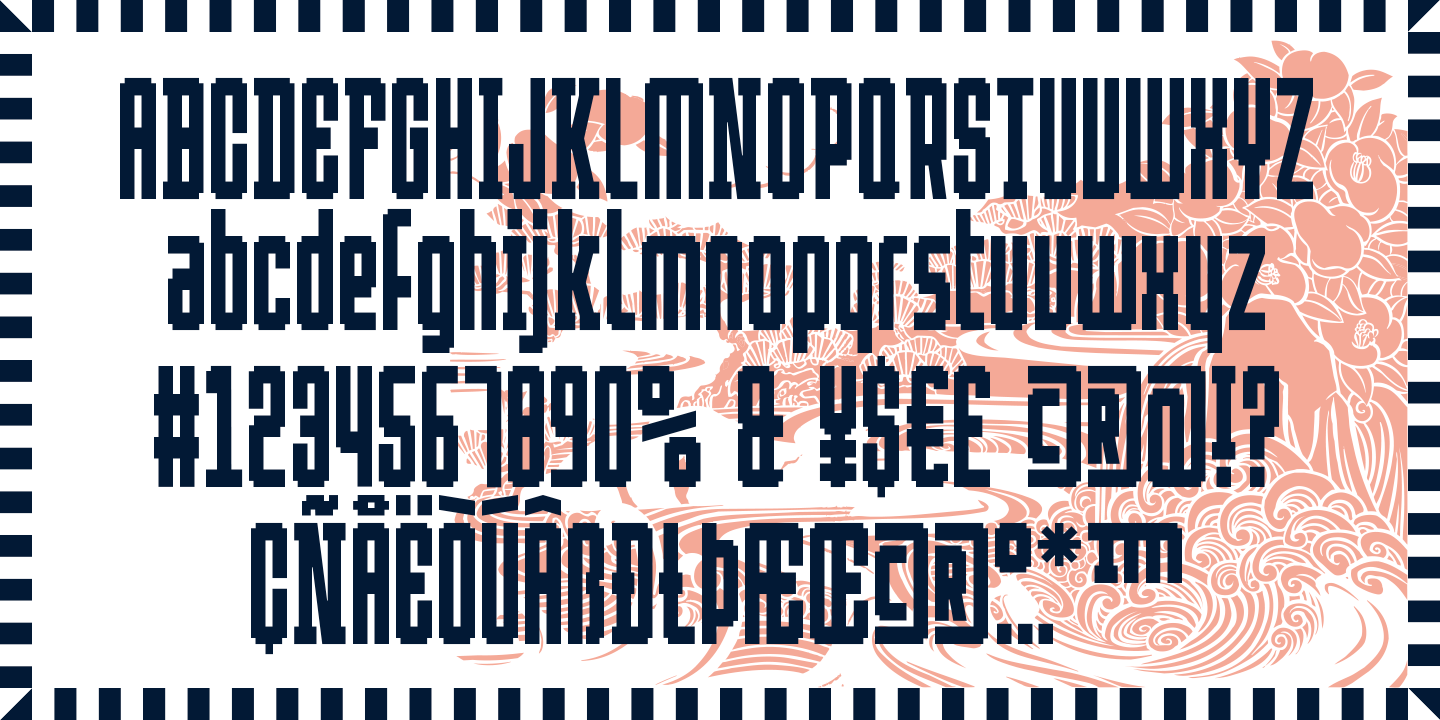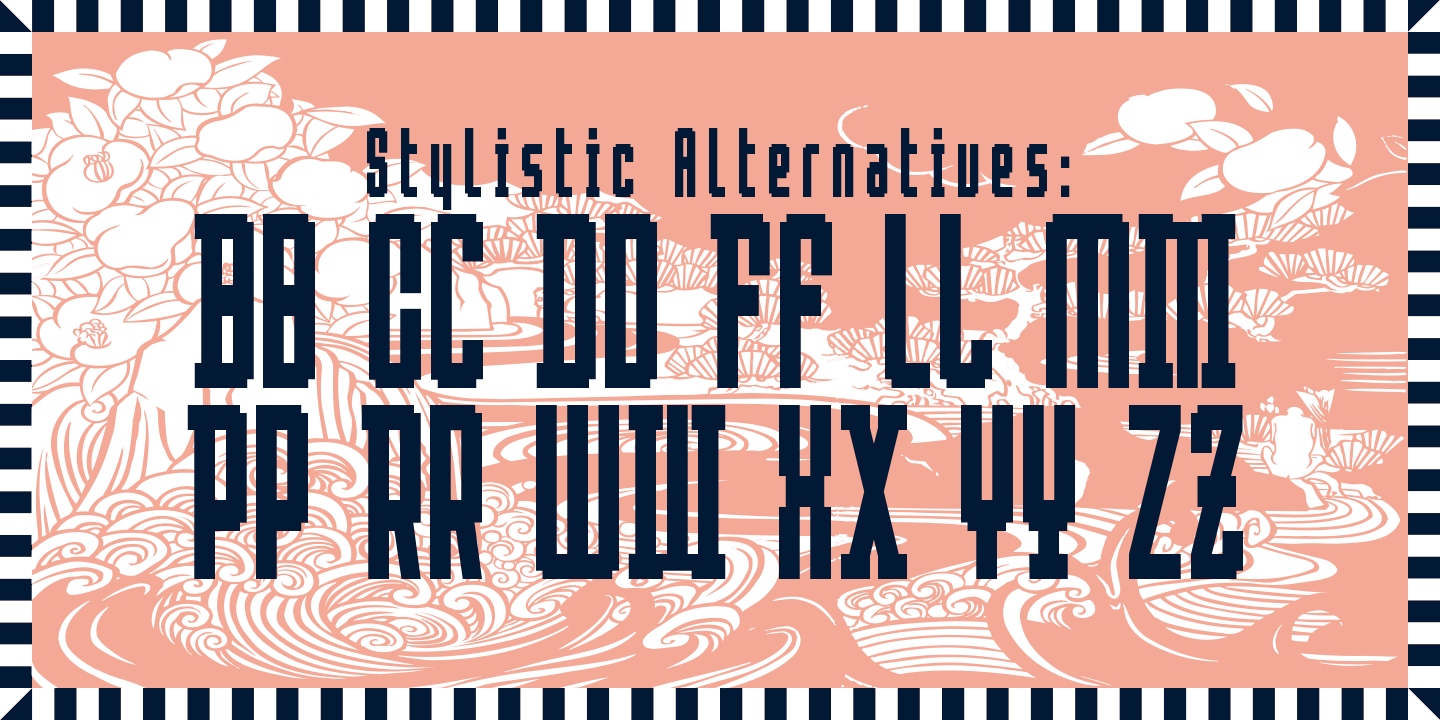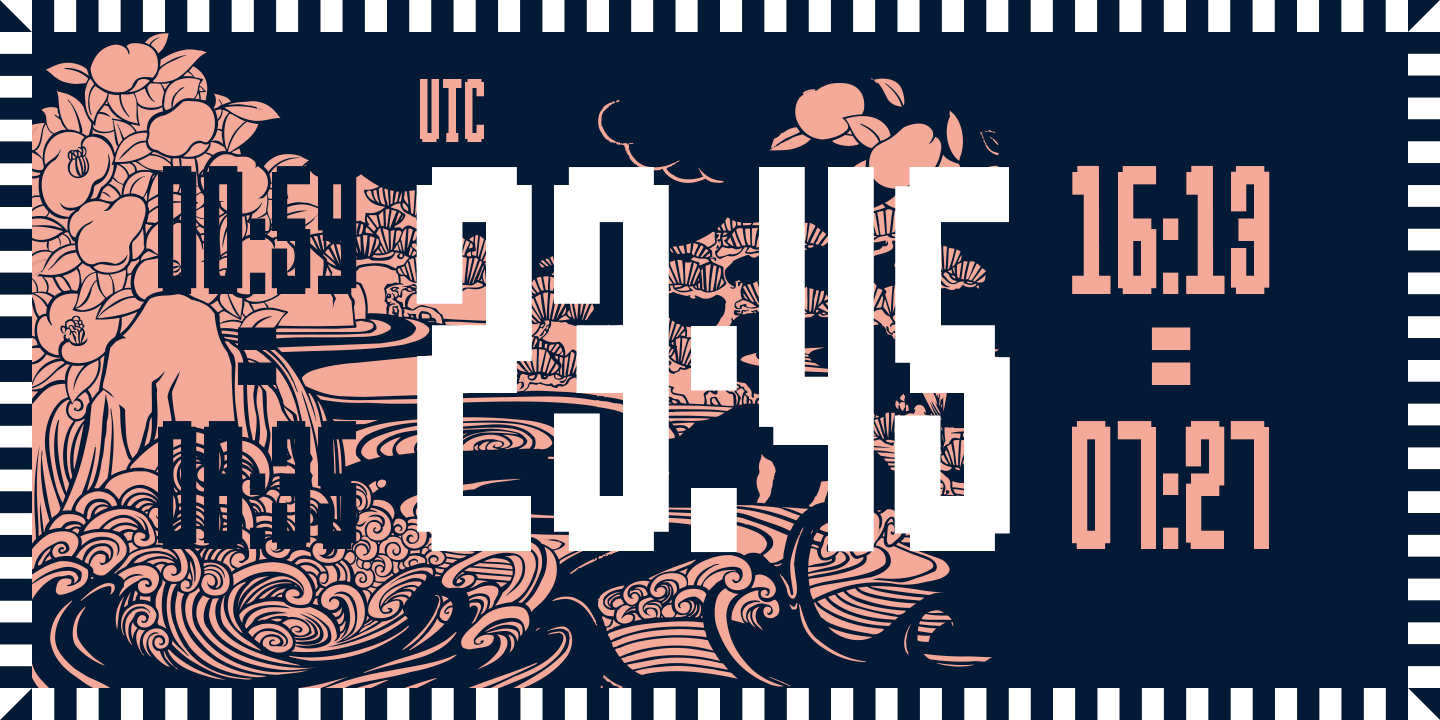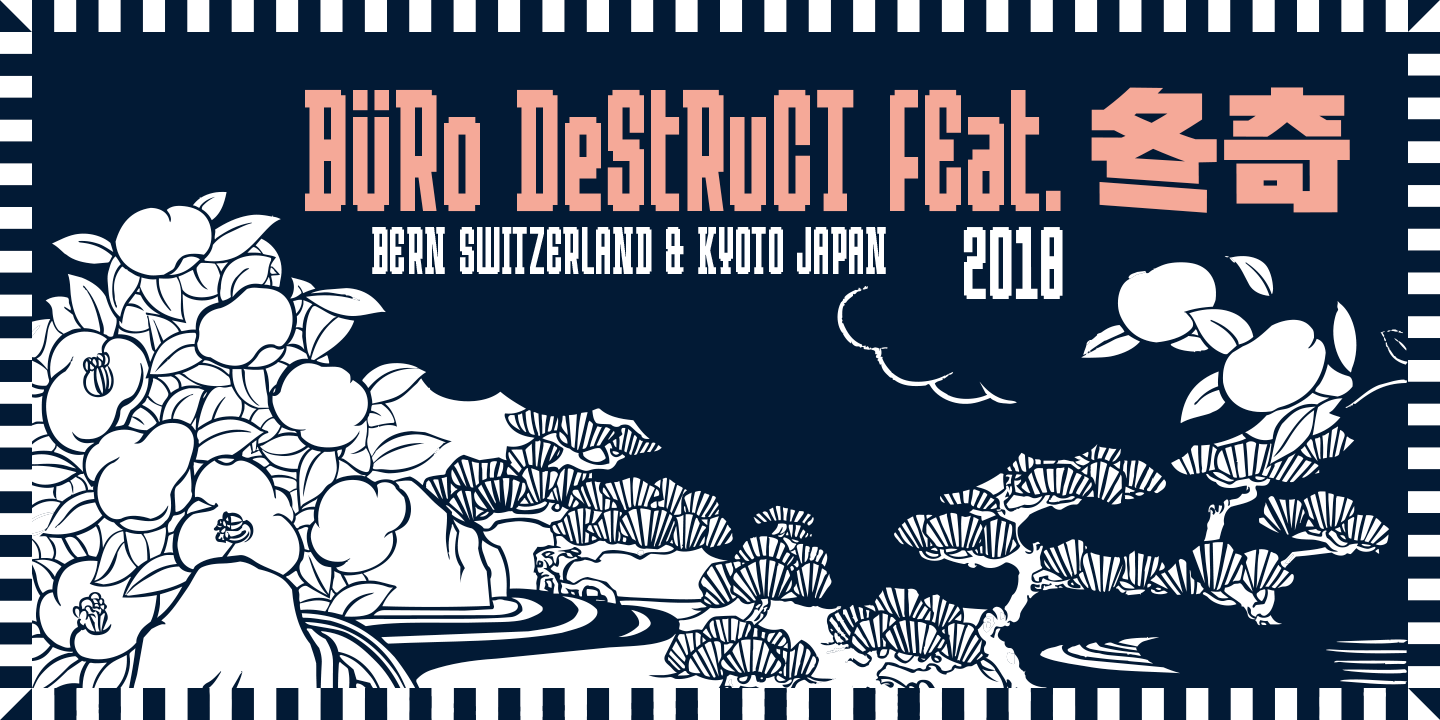
BD Westwork Font: A Bold and Distinctive Display Typeface
Are you looking for a font that can add a touch of uniqueness and elegance to your design projects? Look no further than the BD Westwork Font. This very condensed, bold, and distinctive display typeface is perfect for designers and crafters who want to make a statement with their work. In this article, we’ll explore the features and benefits of BD Westwork Font, and how it can elevate your designs to the next level.
What is BD Westwork Font?
BD Westwork Font is a display typeface designed to make a bold statement. Its condensed and bold style makes it perfect for headlines, titles, and other display text. The font’s distinctive design features a unique blend of modern and classic elements, making it versatile and suitable for a wide range of design projects.
Key Features of BD Westwork Font
- Condensed and Bold: BD Westwork Font is extremely condensed, making it perfect for designs where space is limited. Its bold style ensures that your text stands out and grabs attention.
- Distinctive Design: The font’s unique design features a blend of modern and classic elements, making it perfect for designers who want to add a touch of elegance and sophistication to their work.
- Versatile: BD Westwork Font is suitable for a wide range of design projects, from logos and branding to packaging and advertising.
Using BD Westwork Font in Your Designs
BD Westwork Font is a versatile typeface that can be used in a variety of design projects. Here are some tips on how to use it effectively:
- Combine with Delicate Illustrations: BD Westwork Font pairs perfectly with delicate illustrations, adding a touch of elegance and sophistication to your designs.
- Contrast with Body Text: Use BD Westwork Font in combination with body text with and without serifs to create visual interest and add depth to your designs.
- Use for Headlines and Titles: BD Westwork Font is perfect for headlines and titles, making it a great choice for designers who want to make a bold statement.
Benefits of Using BD Westwork Font
There are many benefits to using BD Westwork Font in your designs. Here are a few:
- Unique and Eye-Catching: BD Westwork Font is a distinctive typeface that can add a touch of uniqueness and elegance to your designs.
- Time-Saving: With BD Westwork Font, you can create professional-looking designs in no time. Its bold and condensed style makes it easy to use and saves you time in the design process.
Who Can Benefit from BD Westwork Font?
BD Westwork Font is perfect for designers and crafters who want to add a touch of uniqueness and elegance to their work. Here are a few examples:
- Graphic Designers: BD Westwork Font is perfect for graphic designers who want to create professional-looking designs that stand out from the crowd.
- Crafters: Crafters who want to add a touch of elegance and sophistication to their work can benefit from using BD Westwork Font.
- Small Business Owners: Small business owners who want to create a strong brand identity can use BD Westwork Font to create professional-looking designs.
| Author | Büro Destruct |
In conclusion, BD Westwork Font is a bold and distinctive display typeface that can add a touch of uniqueness and elegance to your designs. Its condensed and bold style makes it perfect for headlines, titles, and other display text. With its versatile design and cost-effective pricing, BD Westwork Font is a great choice for designers and crafters who want to elevate their designs to the next level.